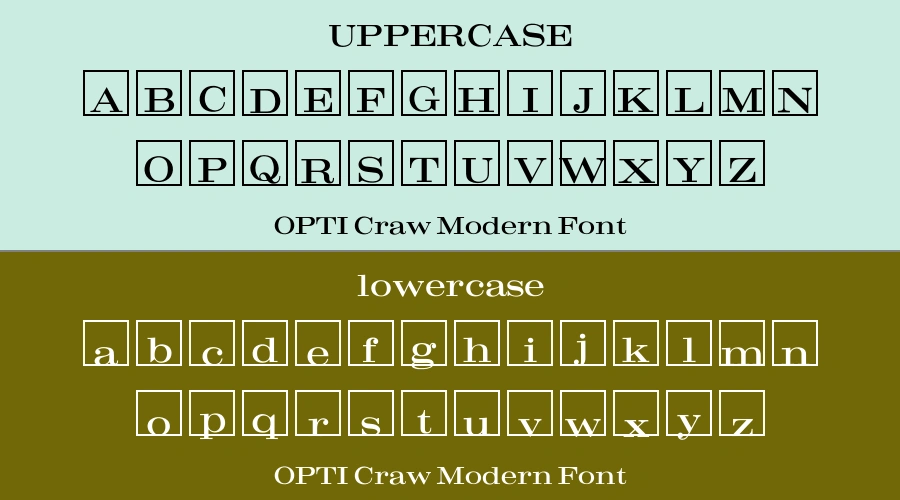
About OPTI Craw Modern Font
OPTI Craw Modern Font represents a sophisticated approach to type design, balancing contextual forms with expressiveness. Perfect for corporate reports, this font family showcases impressive reliability and aesthetic refinement throughout its character set. Designers appreciate its versatility and reliability.
Designers will appreciate nuanced touches including teardrop terminals and dingbat elements, adding sophistication to any project. These features become apparent in captions, where detail retention matters most. The careful treatment of character width and lifestyle alignment ensures optimal performance.